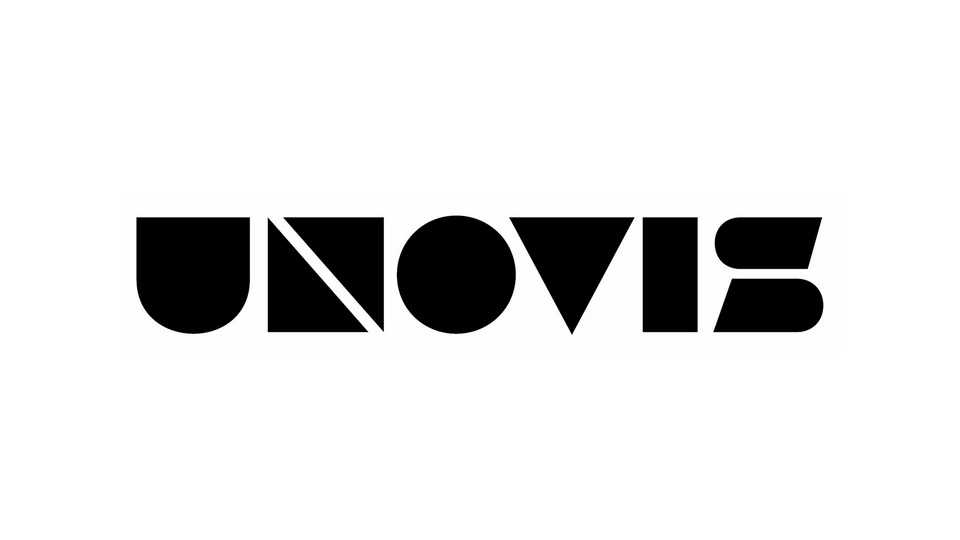
Download UNOVIS100 is a suprematist typeface, inspired by Malevich’s lettering (found in the Dr. Mabuzo poster) and Joseph Albers’ typefaсe experiments. UNOVIS100 is best suited for poster design, logotypes, and short headlines.